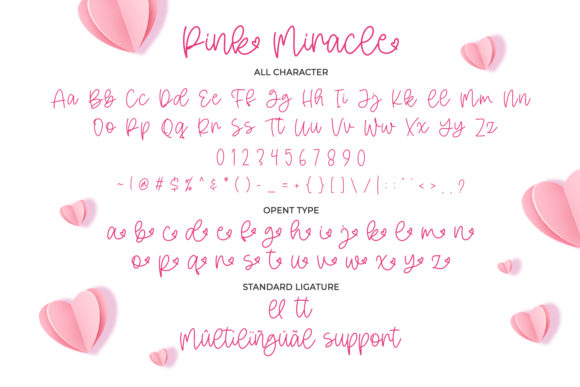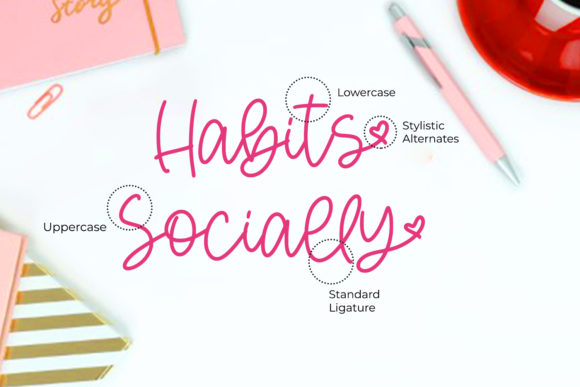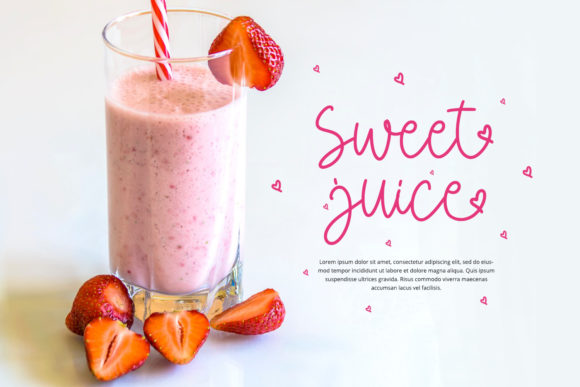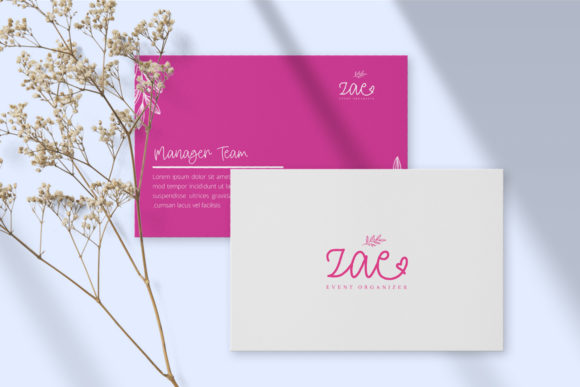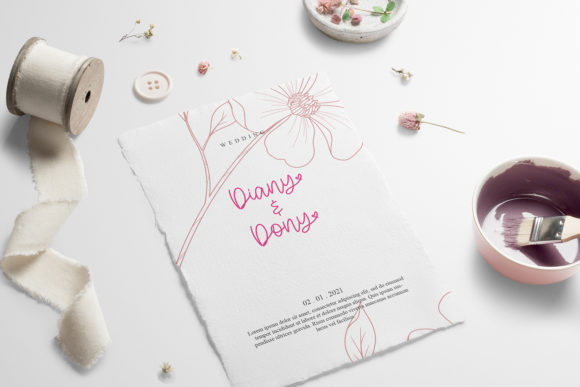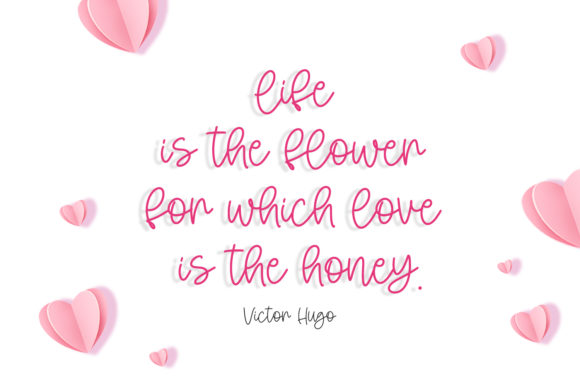
Introduction to Pink Miracle Font
Do you remember the moment when a spark of creativity hit you, and you just had to bring your idea to life? Perhaps it was a late-night brainstorming session, a sketchbook filled with doodles, or a burst of inspiration while scrolling through social media. Whatever the moment was, you knew you needed the perfect design resource to match your vision.
Enter the Pink Miracle Font – a delightful, handwritten font that’s sure to elevate your creative project and leave a lasting impression. With its delicate and joyful touch, this font is perfect for designers looking to add a personal and whimsical touch to their designs. Whether you’re working on a free download, a blog post, or a marketing campaign, the Pink Miracle Font is an invaluable design resource that’s sure to bring your ideas to life.
Key Features of Pink Miracle Font
- High-quality, elegant script font ideal for creative projects, including invitations, wedding designs, and more.
- Includes transparent background option, allowing for seamless integration with various design elements.
- Designed to be highly legible at various sizes and resolutions, from 72 dpi to 300 dpi.
- Unique characteristics include a delicate, cursive style and a range of subtle flourishes, adding a touch of sophistication to any design.
- Perfect for designers seeking a high-quality, free font to enhance their creative projects and presentations.
Honest Review: Pink Miracle Font
I recently stumbled upon the Pink Miracle Font, and I’m excited to share my thoughts on this free download. As a designer, I’m always on the lookout for high-quality design resources to elevate my creative projects.
- Unique and playful design style that adds a touch of whimsy to any project
- Includes a transparent background option for easy customization
- High-quality font files ensure crisp and clear rendering
- Only available in a limited number of font styles, which may not be suitable for all projects
- Some users may find the design style too bold or overpowering
Overall, I’m impressed with the Pink Miracle Font’s potential to add a creative spark to my projects. While it may not be the perfect fit for every design, its unique style and high-quality files make it a valuable resource for designers looking to push the boundaries of their creative work.
Pink Miracle Font
The Pink Miracle Font is a free design resource ideal for creative projects requiring a unique touch. This high-quality font features a transparent background, making it perfect for overlaying on images or other design elements.
To get the most out of the Pink Miracle Font, experiment with different font sizes, colors, and layering techniques. Combine it with other design elements to create a unique visual identity.
The Pink Miracle Font is perfect for:
- Baby shower and birthday party decorations
- Food and beverage branding
- Artistic and creative projects
Compared to Pink Miracle Font, Great Vibes Font has a more subtle and refined feel, making it suitable for a wider range of design applications.
Pacifico Font is a beautiful, handwritten font that’s perfect for creative projects that need a touch of warmth and personality. It’s ideal for use in branding materials, advertising campaigns, or any design that requires a friendly and approachable tone. Pacifico Font is available for free download and can be used on a transparent background, making it a valuable design resource.
Compared to Pink Miracle Font, Pacifico Font has a more relaxed and casual feel, making it suitable for designs that require a friendly and approachable tone.